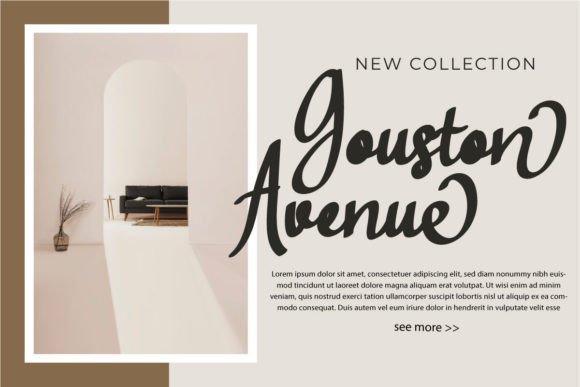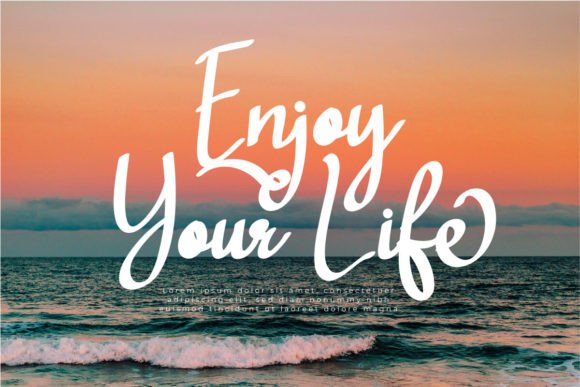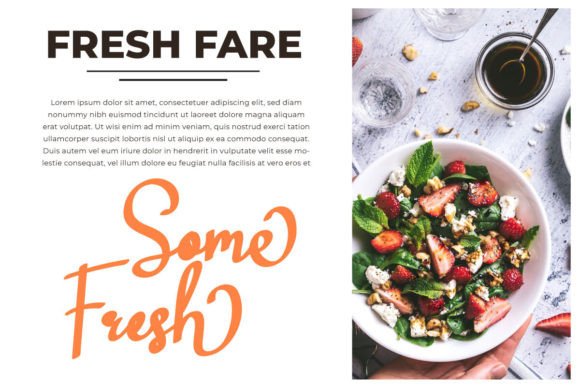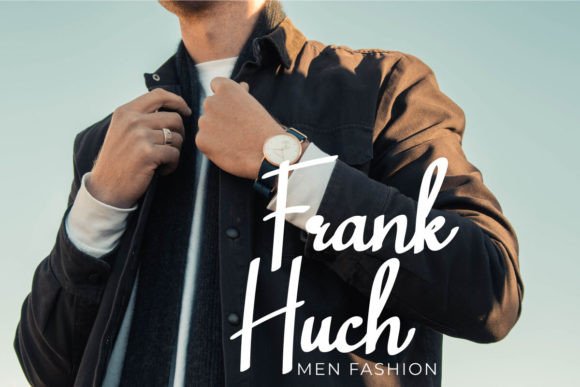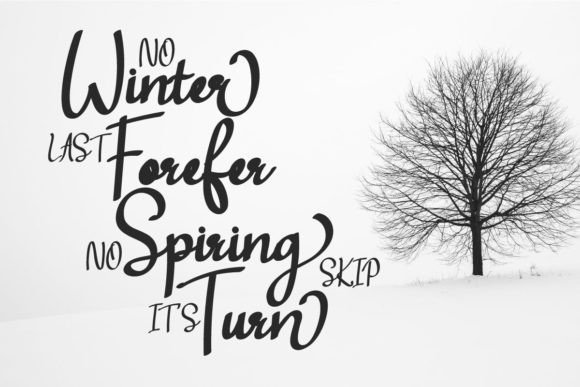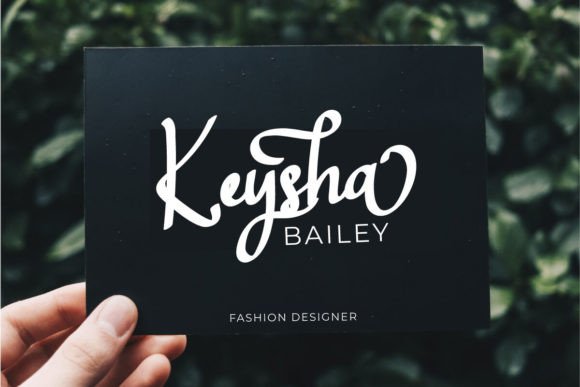
The Antigua Font: Elevate Your Designs with Elegance and Style
I’ll never forget the time I was working on a wedding invitation project for a dear friend. The design was coming along beautifully, but something was missing – the perfect font. I scoured the internet, tried out countless options, but none seemed quite right. That was until I stumbled upon the Antigua font. Its elegant script and stylish flair instantly elevated the design, and I knew I’d found the one. In this article, we’ll dive into the world of Antigua, exploring its features, uses, and what makes it a standout addition to any designer’s toolkit.
So, what makes Antigua so special? Here are a few things that I absolutely love:
- ✨ Elegant script style that’s perfect for high-end designs
- ✅ Highly versatile, suitable for a wide range of projects
- 💫 Beautifully crafted, with attention to detail and a clear focus on aesthetics
- 🎨 Extensive OpenType features, including glyphs and stylistic alternates
Of course, no font is perfect, and Antigua does have a few small quirks:
- 🤔 Some users may find the font a bit too ornate for certain projects
- ⚠️ May not be the best choice for body text or long-form content
The Story Behind Antigua
Antigua was designed by a team of skilled typographers who wanted to create a font that would evoke the elegance and sophistication of traditional script writing. With its beautiful lines, intricate details, and extensive OpenType features, Antigua is the perfect choice for designers who want to add a touch of luxury to their work.
| What type of projects is Antigua best suited for? | Antigua is highly versatile and can be used for a wide range of projects, including wedding invitations, branding, packaging, and more. |
| Is Antigua suitable for body text or long-form content? | While Antigua is a beautiful font, it’s not the best choice for body text or long-form content. Its elegant script style is better suited for headlines, titles, and short bursts of text. |
| Does Antigua have any special features or OpenType capabilities? | Yes, Antigua has extensive OpenType features, including glyphs, stylistic alternates, and ligatures. These features allow you to add visual interest and customize your text to suit your design needs. |